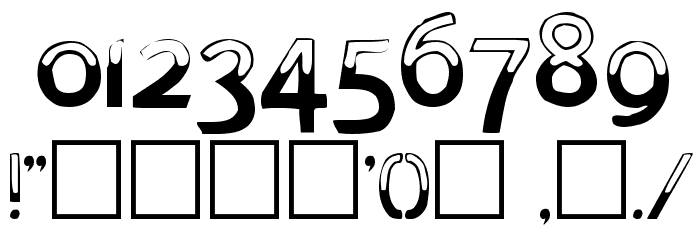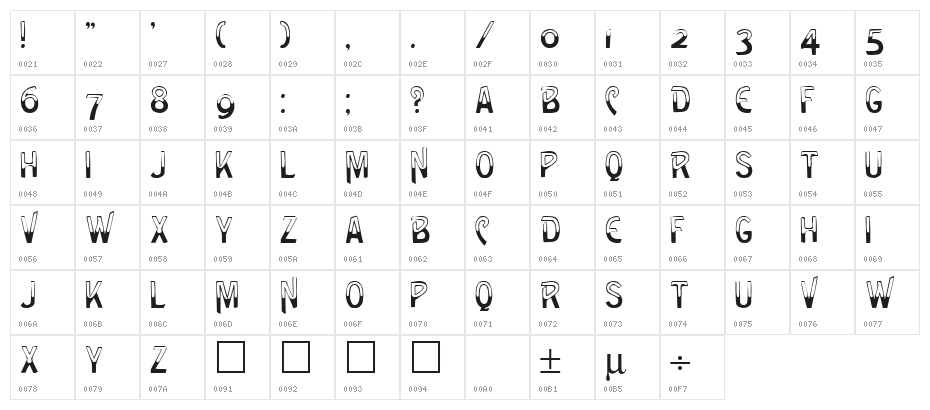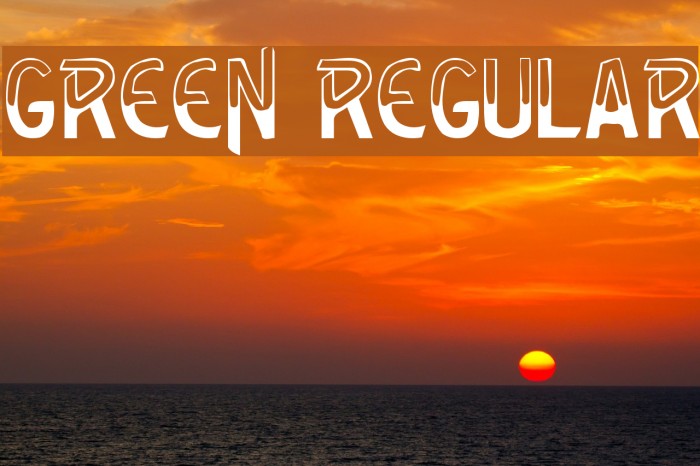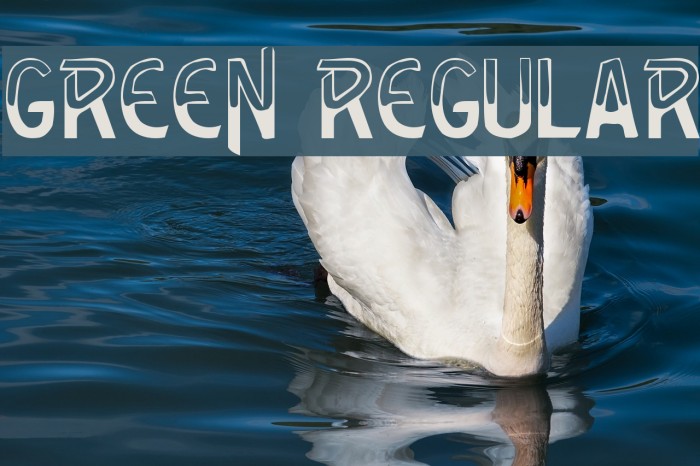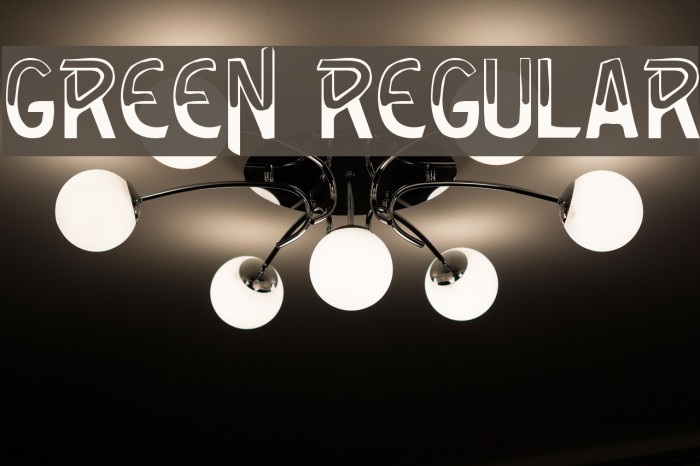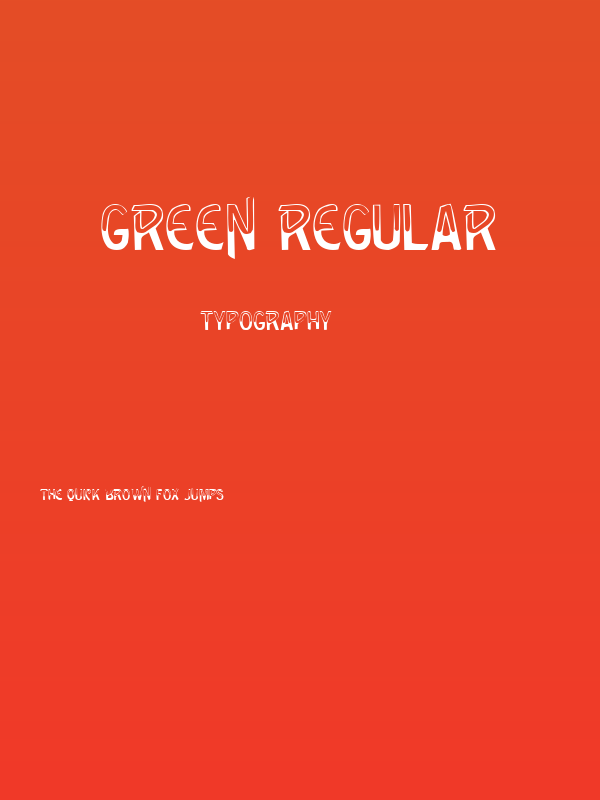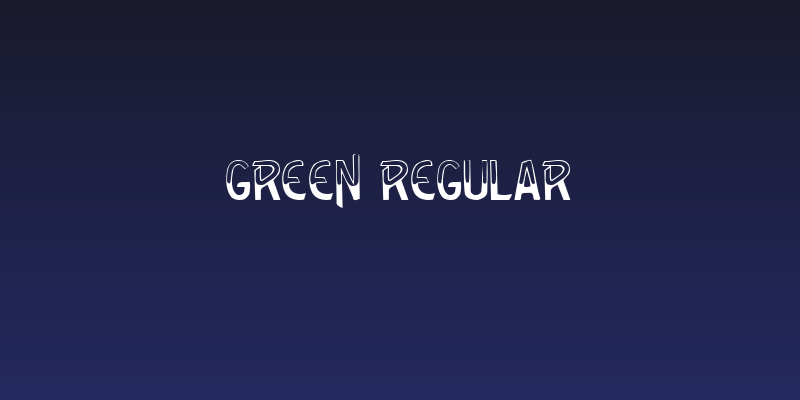
Green Regular Font
Green Regular Description
This font features a bold and dynamic style with a distinct 3D shadow effect, giving it a sense of depth and movement. The uppercase letters are characterized by sharp angles and a slightly condensed form, while the lowercase letters maintain a consistent style with a playful twist. The numerals are bold and easily readable, matching the overall aesthetic of the font. The special characters are designed to complement the letters and numbers, maintaining the same bold and shadowed appearance. This font is ideal for projects that require a strong visual impact and a modern, edgy look.
| Proposed Projects | Ideal for posters, headlines, logos, and any design needing a bold statement. |